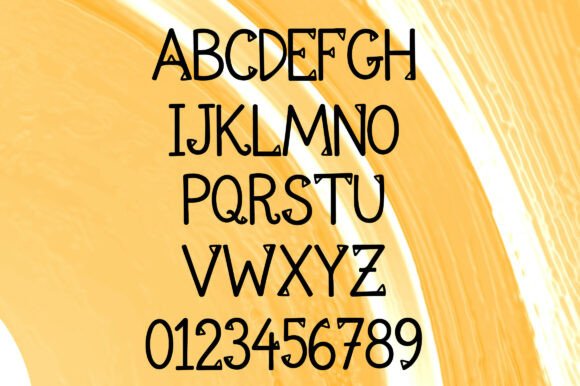
Introducing Brightmind Font: The Perfect Blend of Playfulness and Modern Style
In the world of typography, fonts play a crucial role in conveying the tone and personality of a brand or design. If you’re a designer or crafter looking for a font that exudes creativity, cheerfulness, and style, look no further than Brightmind Font. This tall, playful decorative display font is designed to make a statement with its clean lines, quirky curves, and subtle pointed accents.
What Makes Brightmind Font Stand Out?
Brightmind Font boasts a modern handmade style that sets it apart from other fonts. Its unique blend of clean lines and quirky curves gives it a distinctive feel that’s both creative and stylish. The subtle pointed accents add a touch of playfulness, making it perfect for fun branding, posters, and imaginative designs.
Key Features of Brightmind Font
- Tall and Playful: Brightmind Font is a tall font that’s designed to make a statement. Its playful nature makes it perfect for designs that require a touch of whimsy and fun.
- Clean Lines: The font features clean lines that give it a modern and sleek feel.
- Quirky Curves: The quirky curves in Brightmind Font add a touch of personality and playfulness to the font.
- Subtle Pointed Accents: The subtle pointed accents in the font add a touch of sophistication and elegance.
- Modern Handmade Style: Brightmind Font boasts a modern handmade style that’s both creative and stylish.
Uses of Brightmind Font
Brightmind Font is a versatile font that can be used in a variety of design projects. Here are some of the ways you can use this font:
- Fun Branding: Brightmind Font is perfect for fun and playful branding projects. Its creative and cheerful feel makes it ideal for brands that want to stand out.
- Posters: The font is great for poster designs that require a touch of playfulness and whimsy.
- Imaginative Designs: Brightmind Font is perfect for imaginative designs that require a font that’s both creative and stylish.
- Signage: The font can be used for signage projects that require a modern and sleek feel.
- Packaging: Brightmind Font can be used for packaging projects that require a touch of playfulness and creativity.
Why Choose Brightmind Font?
There are many fonts available in the market, but Brightmind Font stands out for its unique features and versatility. Here are some reasons why you should choose Brightmind Font:
- Unique Design: Brightmind Font has a unique design that’s both creative and stylish.
- Versatility: The font is versatile and can be used in a variety of design projects.
- Easy to Read: Brightmind Font is easy to read, making it perfect for designs that require a font that’s both stylish and legible.
- Modern Feel: The font has a modern feel that’s perfect for designs that require a touch of sophistication and elegance.
Brightmind Font is a unique and versatile font that’s perfect for designers and crafters looking for a font that exudes creativity, cheerfulness, and style. Its modern handmade style, clean lines, quirky curves, and subtle pointed accents make it a great choice for fun branding, posters, and imaginative designs. With its ease of use and versatility, Brightmind Font is a must-have font for any designer or crafter looking to add a touch of playfulness and creativity to their designs.